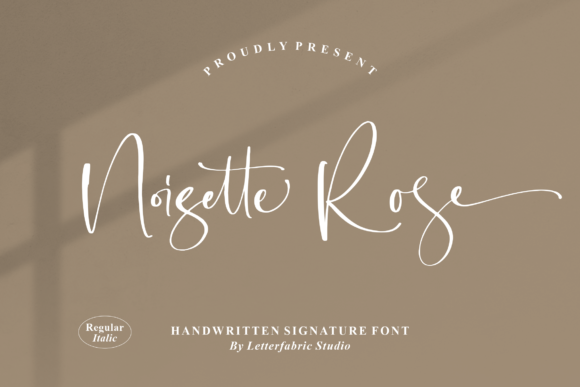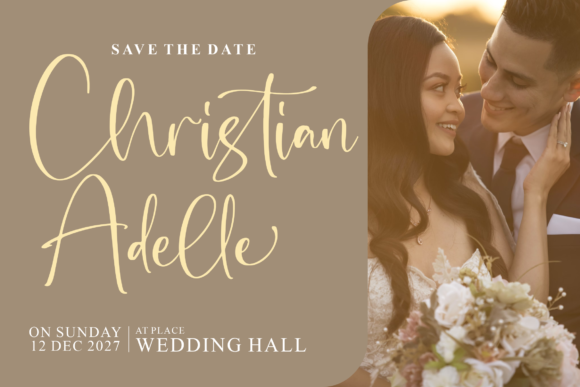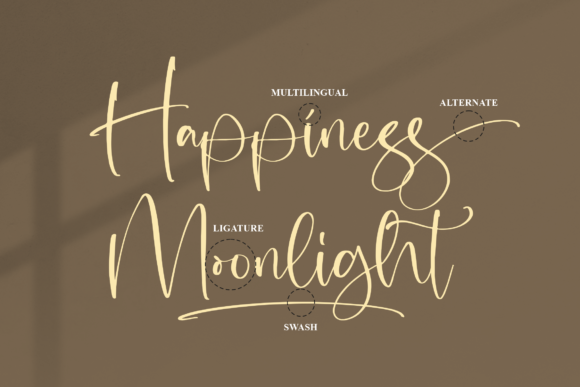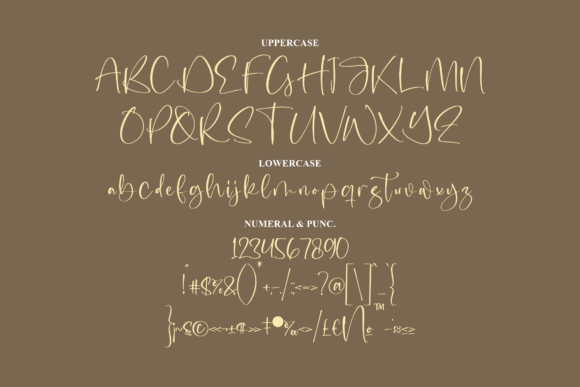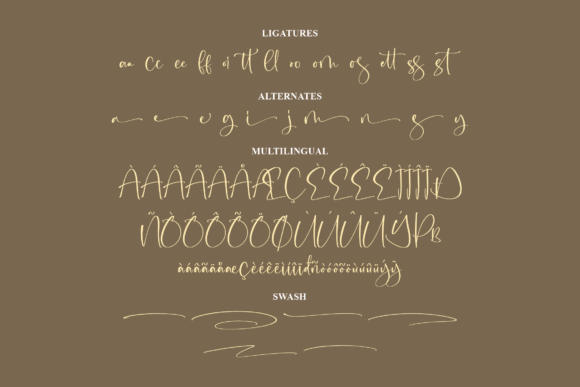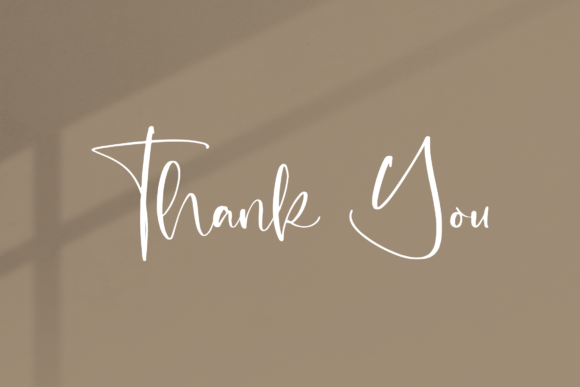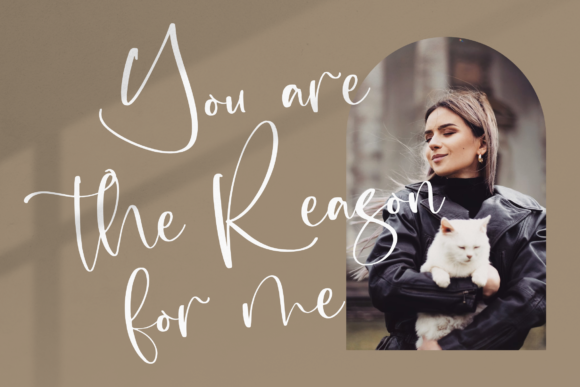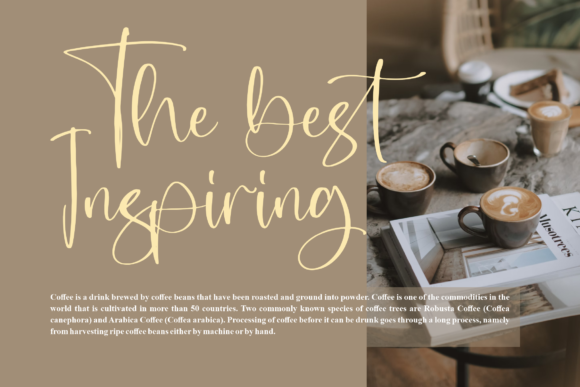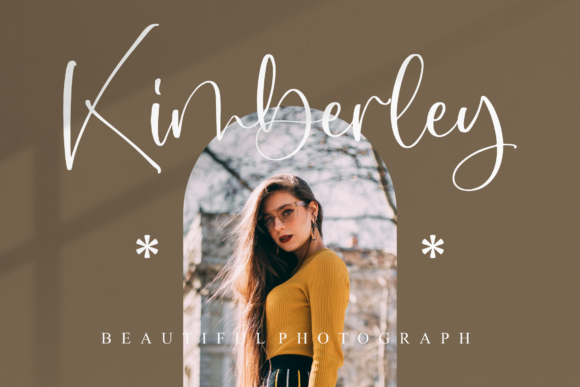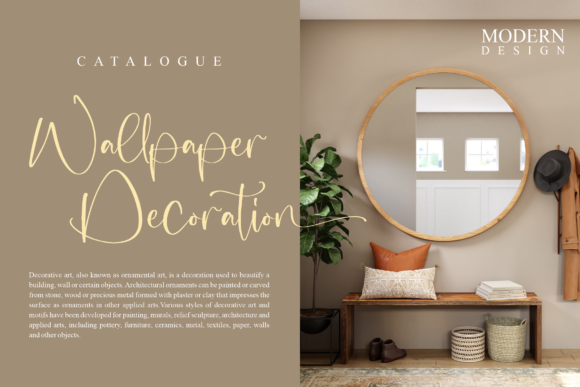
Noisette Rose Font
About Noisette Rose Font
Noisette Rose, with its exquisite script style, stands as a versatile and sophisticated font that can effortlessly enhance a myriad of creative projects. From logos and branding initiatives to homeware designs, product packaging, mugs, quotes, posters, shopping bags, t-shirts, book covers, name cards, invitation cards, greeting cards, labels, photography, watermarks, and special events, this font proves itself as a valuable asset for diverse design endeavors.
The font’s adaptability is showcased in its ability to seamlessly integrate into various contexts, bringing a touch of elegance and aesthetic appeal. Whether you are working on corporate branding or crafting a personalized invitation, Noisette Rose offers a unique script taste that can elevate the visual impact of your projects.
One noteworthy feature of Noisette Rose is its PUA encoding, which stands for Private Use Area encoding. This encoding method allows users to easily access an extensive range of glyphs and ligatures. The inclusion of these special characters adds an extra layer of creativity to your designs, enabling you to experiment with unique typographic elements that set your work apart.
For logo designers, the fluid strokes and intricate details of Noisette Rose can help create memorable and distinctive brand identities. Homeware designers can utilize the font to add a touch of sophistication to their creations, while product packaging benefits from the font’s ability to convey both style and substance. Quotes, posters, and shopping bags adorned with Noisette Rose exude a sense of elegance and aesthetic finesse.
T-shirts and book covers become captivating canvases for this script font, injecting a sense of personality and charm. Noisette Rose ensures that name cards, invitation cards, and greeting cards carry a refined and stylish presentation, making a lasting impression on recipients. Labels for various products are transformed into eye-catching displays with the font’s artistic flair, and photography watermarks acquire a professional and distinctive touch.
Special events, from weddings to corporate functions, benefit from the grace and beauty of Noisette Rose. The font lends an air of sophistication to event materials, ensuring that every detail is visually striking.
In conclusion, Noisette Rose’s 400 words encapsulate its versatility and aesthetic prowess. Its PUA encoding unlocks a world of creative possibilities, making it an indispensable tool for designers across a spectrum of projects. Whether applied to commercial branding or personal expressions, Noisette Rose brings a beautiful script taste to every creative endeavor.